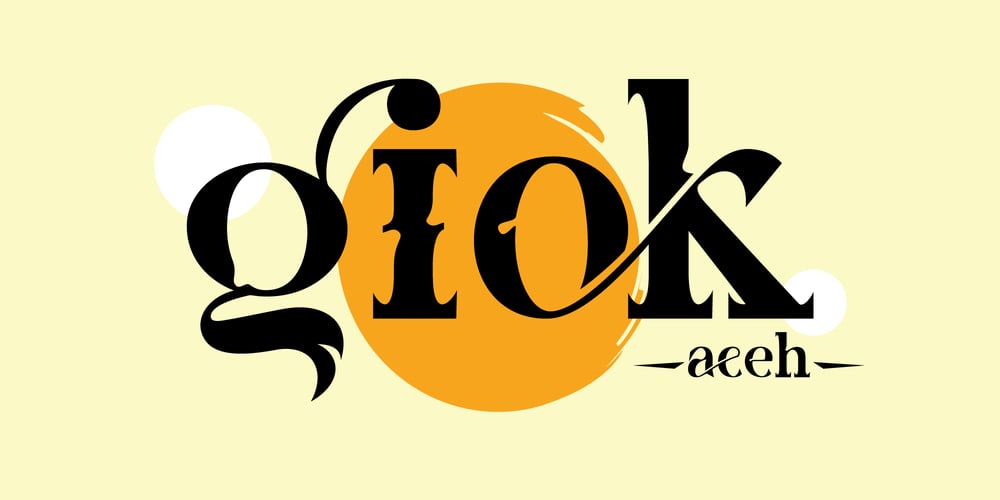
Giok Font Family was designed by Muhammad Ansari and published by Kaidosan. Giok contains 1 styles and family package options. Giok is a modern grotesk with a cool look, consisting of a modern and unique style. with a very versatile style and is perfect for a great resource for designers to explore, attention-grabbing artwork, interesting social media posts, magazines or brochures and much more that fits this giok font.